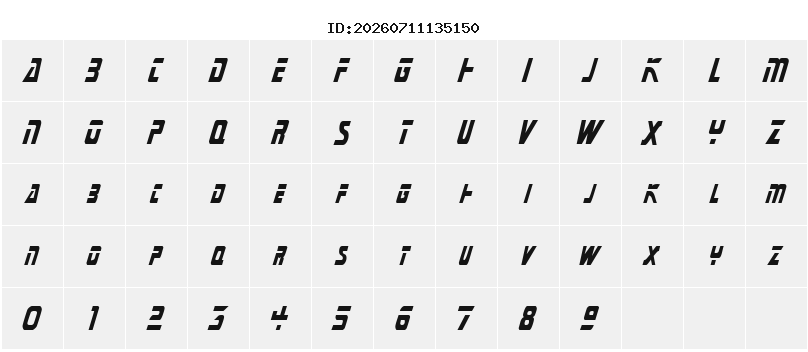
JadeCondensed Preview
• Font Name: JadeCondensed
• Full Font Name: MarinerCondensed
About JadeCondensed.ttf
JadeCondensed.ttf is a modern, elegant sans-serif font designed for ultimate readability and visual harmony. Perfect for branding, headlines, web design, and print materials.